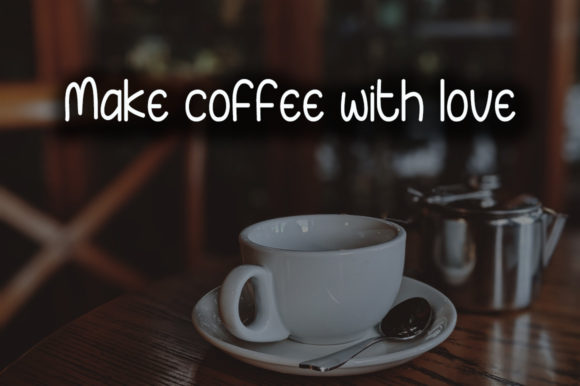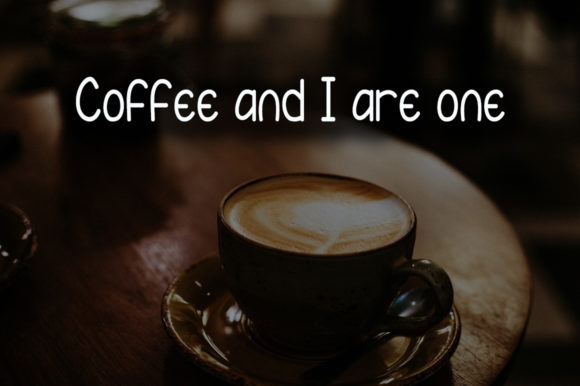
Coffee Mocha Font
db-ku.com - Script & Handwritten -- Coffee Mocha is a handwritten font that can be used for all chalkboard quotes or teaching material! Its authentic look and feel will add a personal and realistic feel to your designs.